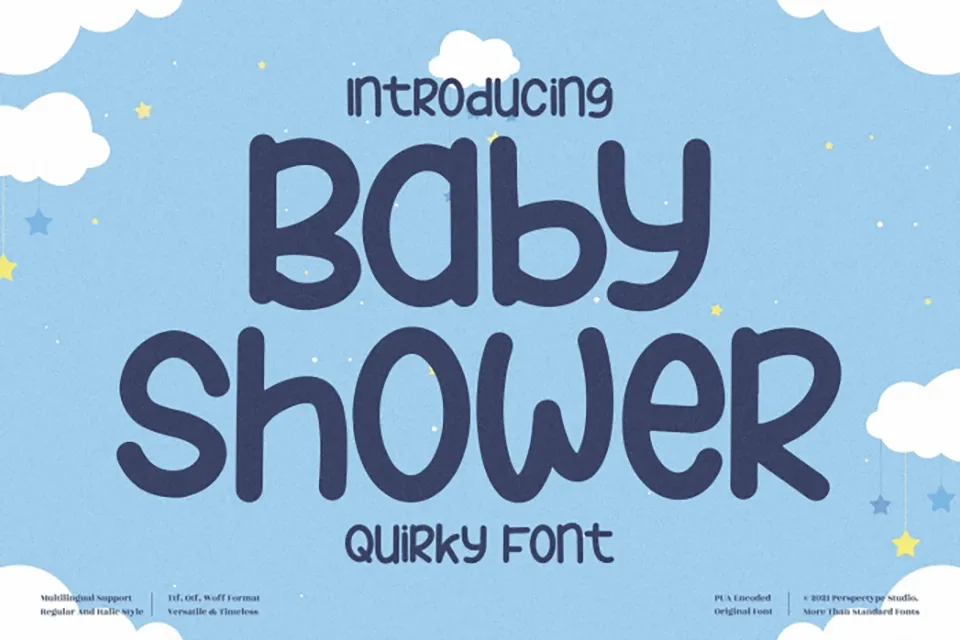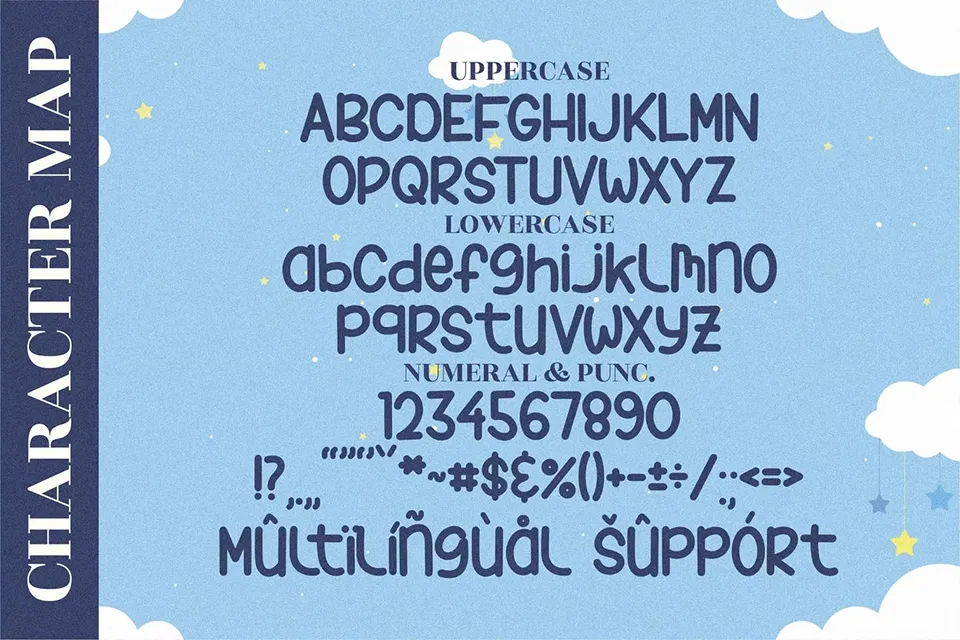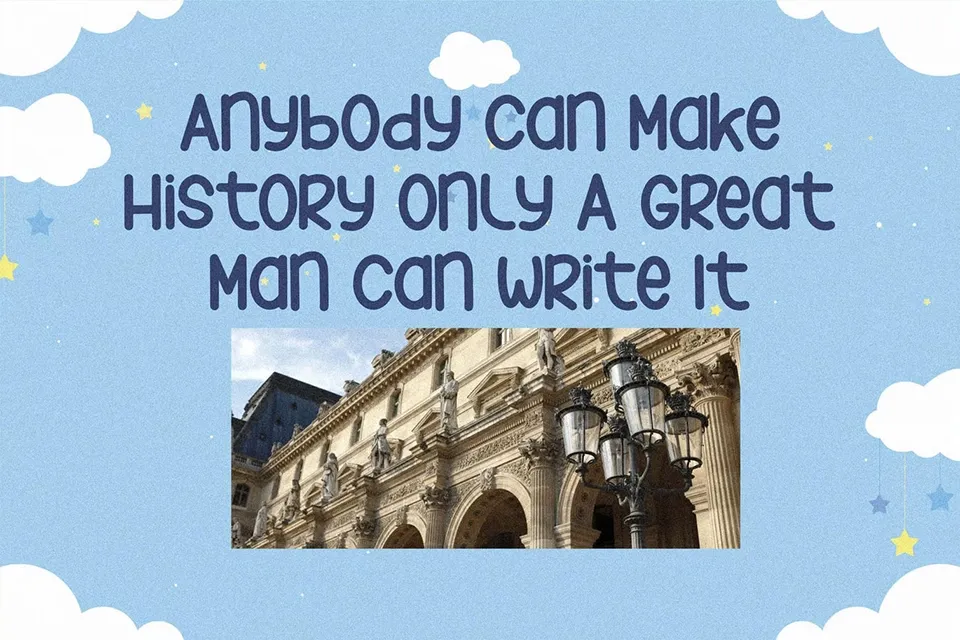
Baby Shower Font
Baby Shower Font is a quirky, playful handwritten typeface perfect for baby shower invitations, children’s projects, and any design that needs a touch of cuteness and fun. Its rounded, friendly letterforms evoke a sense of joy and innocence, making it ideal for party themes, kids’ crafts, and whimsical branding.